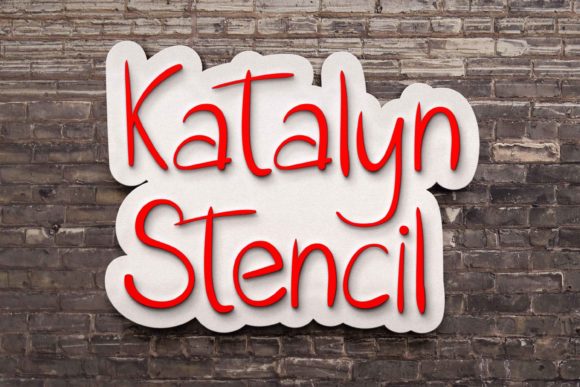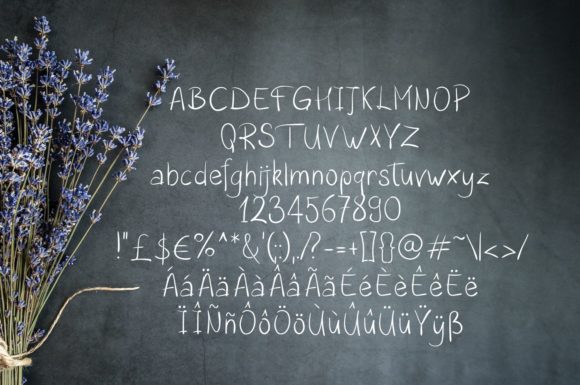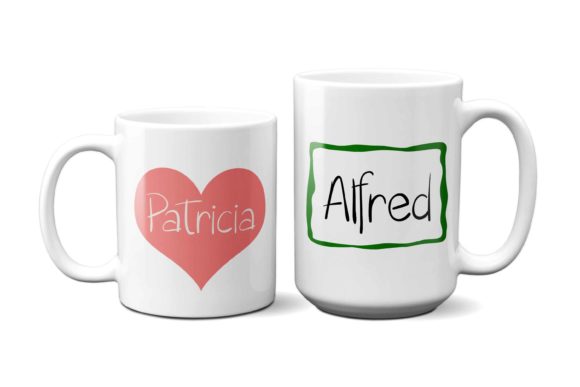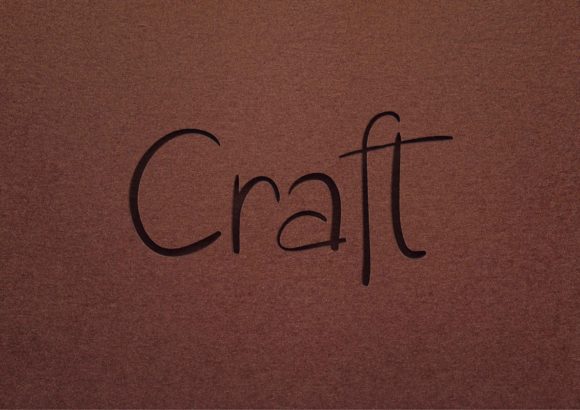
Katalyn Stencil Font
About the Katalyn Stencil Font
Introducing the Katalyn Stencil Font, a beautifully crafted typeface designed to elevate your creative projects. Katalyn Stencil is a handwritten stencil font. Its casual charm makes it appear wonderfully down-to-earth, readable and, ultimately, incredibly versatile. Katalyn Stencil will look outstanding in any context, whether it’s being used on busy backgrounds or as a standalone headline!
Katalyn Stencil’s friendly, approachable style makes it ideal for projects needing a casual yet legible feel. Consider it for headlines, short body text, branding elements like logos and short taglines, posters, and packaging designs where a handcrafted aesthetic is desired. It would work particularly well for brands focusing on crafts, coffee shops, or eco-friendly products.
However, its less formal nature makes it unsuitable for large blocks of text or UI elements requiring high readability. Avoid using it for lengthy paragraphs or applications where clear legibility is paramount, such as books or websites with extensive text content.
Pairing Katalyn Stencil with a clean sans-serif like Open Sans for body copy or a more geometric sans-serif like Montserrat for a modern contrast will create a balanced design. For a more playful feel, consider a script font with a similar weight, keeping the overall aesthetic consistent.
Katalyn Stencil Font Usage Examples
Katalyn Stencil Font Example